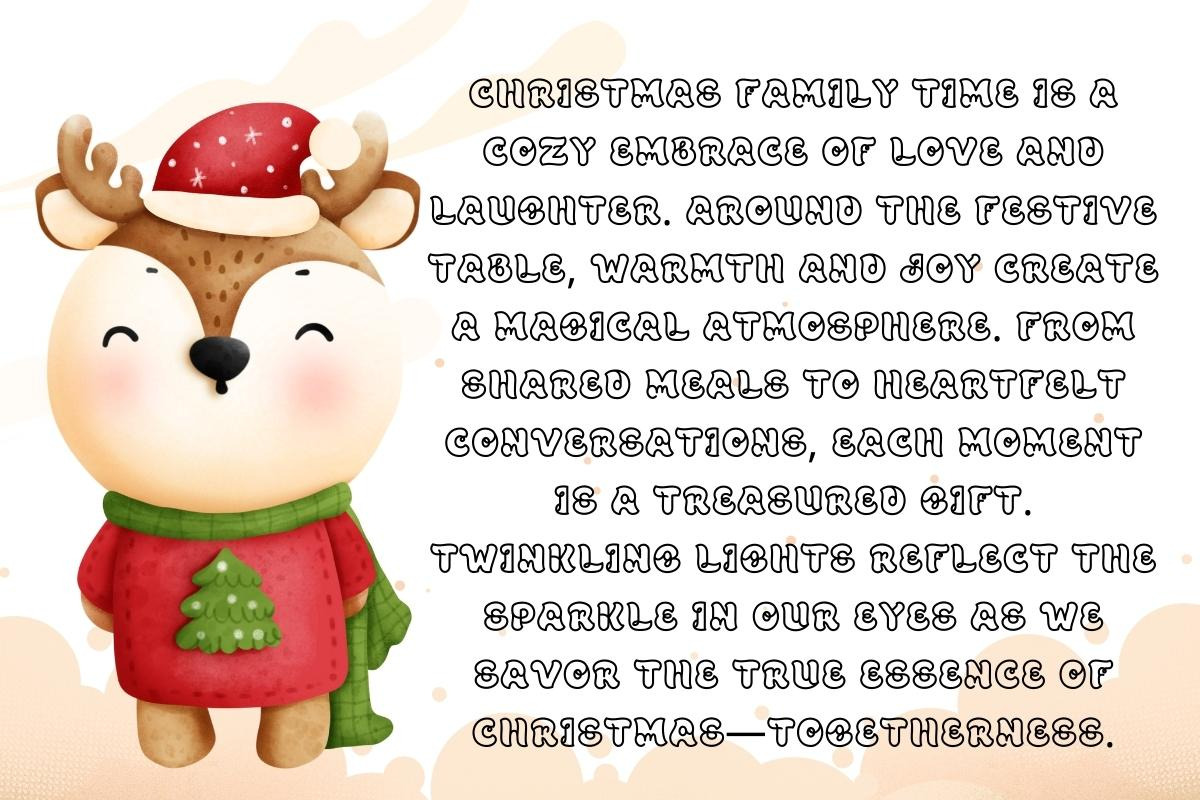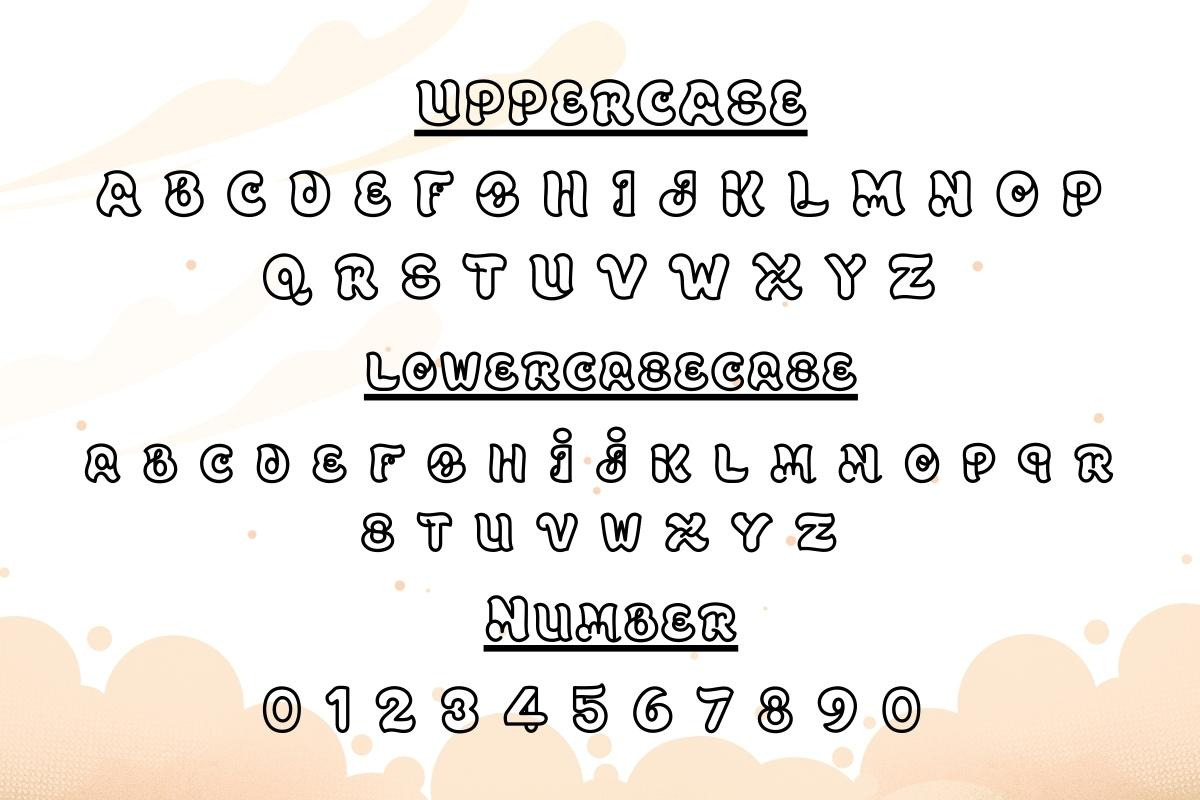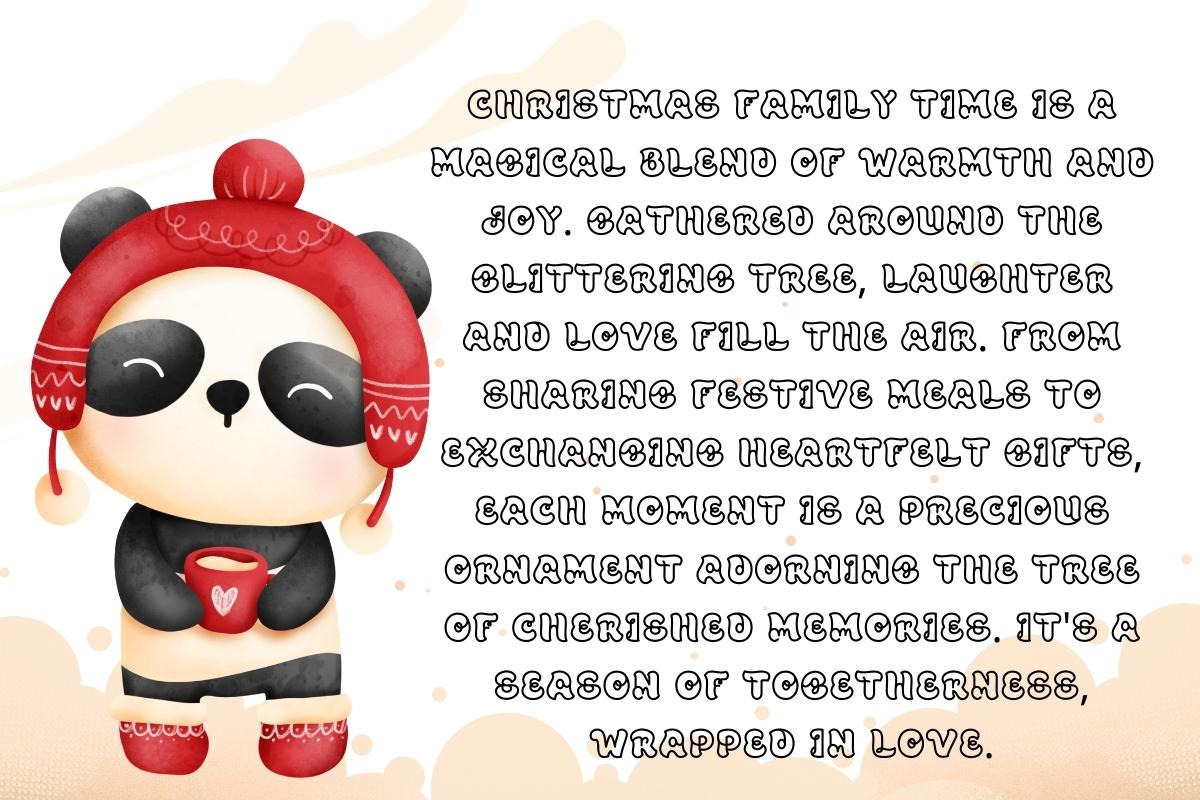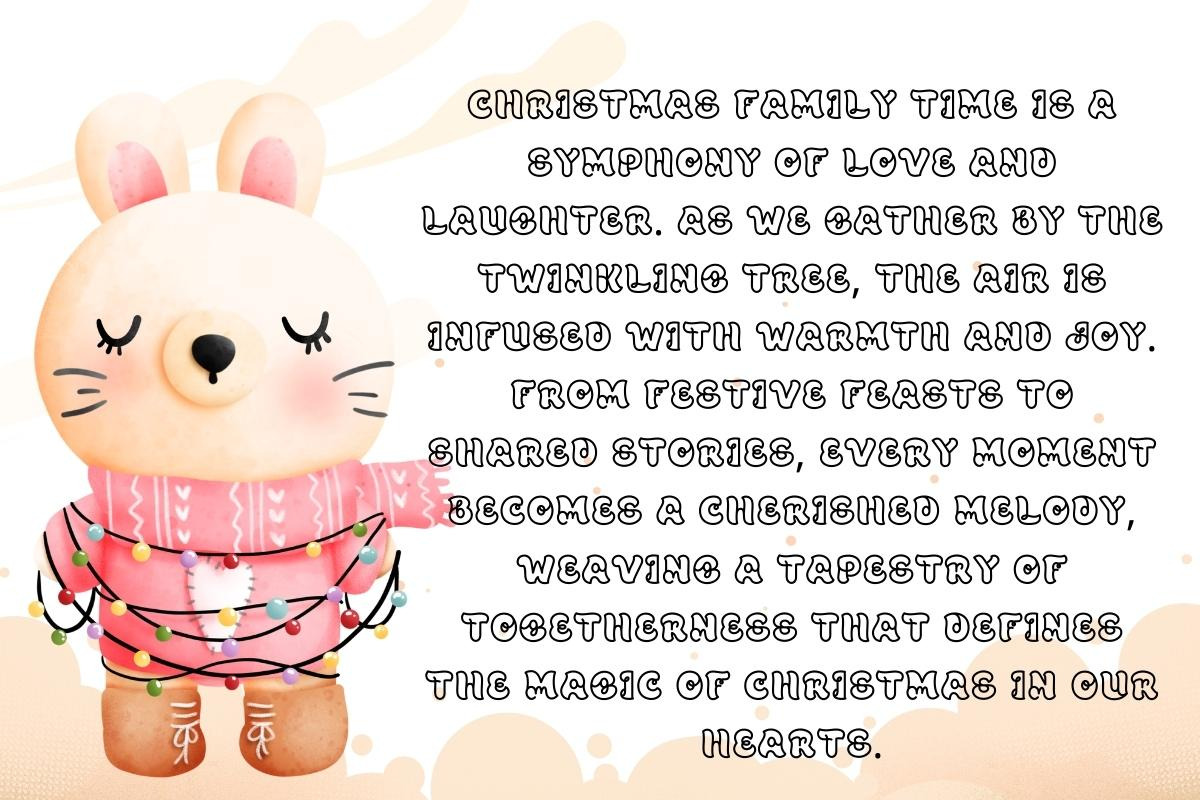
Merry Xmas - Handwritting
Celebrate the season with Merry Xmas, a festive script font that seamlessly merges the warmth of handwritten elegance with the bold presence of a display font. Infuse your holiday projects with the joyous spirit of Merry Xmas, where each character becomes a cheerful expression of creativity. Elevate your designs with festive flair!